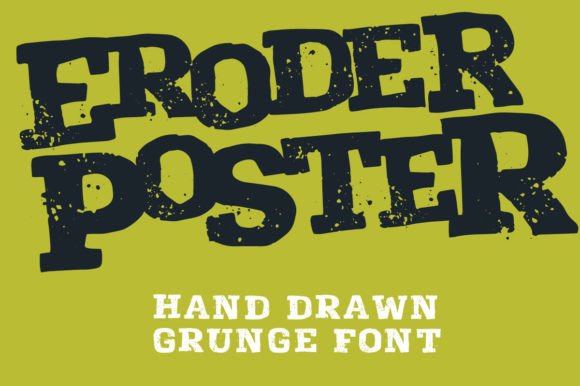
Eroder Poster Font: A Cool Hand-Drawn Grungy Poster Display Font
Are you looking for a font that can add an edgy touch to your designs? Look no further than the Eroder Poster font. This cool hand-drawn grungy poster display font is perfect for creating bold and eye-catching designs that demand attention. In this article, we’ll take a closer look at the features and benefits of the Eroder Poster font, and explore how it can be used to take your designs to the next level.
What is Eroder Poster Font?
Eroder Poster is a hand-drawn grungy poster display font that features two different all-caps distressed type sets (upper and lower case) and automatic ligatures. This font is perfect for creating edgy designs that require a bold and rugged look. The Eroder Poster font is designed to be versatile and can be used for a wide range of design projects, from posters and flyers to logos and branding.
Key Features of Eroder Poster Font
- Hand-drawn grungy design: The Eroder Poster font features a unique hand-drawn grungy design that gives it a rugged and edgy look.
- Two different all-caps distressed type sets: The font includes two different all-caps distressed type sets (upper and lower case), giving you flexibility and variety in your designs.
- Automatic ligatures: The Eroder Poster font features automatic ligatures, which allow you to create complex and visually appealing designs with ease.
Benefits of Using Eroder Poster Font
The Eroder Poster font offers a range of benefits for designers, including:
- Unique and edgy design: The Eroder Poster font provides a unique and edgy design that can help your designs stand out from the crowd.
- Flexibility and versatility: The font is versatile and can be used for a wide range of design projects, from posters and flyers to logos and branding.
- High-quality design: The font is designed to high standards, ensuring that your designs look professional and polished.
Tips and Tricks for Using Eroder Poster Font
Here are some tips and tricks for using the Eroder Poster font:
- Use it for headlines and titles: The Eroder Poster font is perfect for headlines and titles, where you want to grab attention and create a bold statement.
- Experiment with different colors and textures: Experiment with different colors and textures to add depth and interest to your designs.
- Combine it with other fonts: Combine the Eroder Poster font with other fonts to create a unique and visually appealing design.
- Use it for branding and logos: The Eroder Poster font is perfect for branding and logos, where you want to create a bold and memorable identity.
The Eroder Poster font is a cool hand-drawn grungy poster display font that is perfect for creating bold and eye-catching designs. With its unique design, flexibility, and ease of use, it’s an ideal choice for designers who want to add an edgy touch to their projects. Whether you’re creating posters, flyers, logos, or branding, the Eroder Poster font is a great choice.
- What is the Eroder Poster font?: The Eroder Poster font is a cool hand-drawn grungy poster display font that features two different all-caps distressed type sets (upper and lower case) and automatic ligatures.